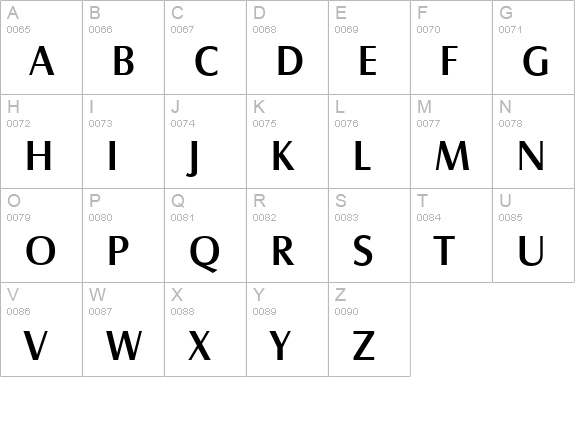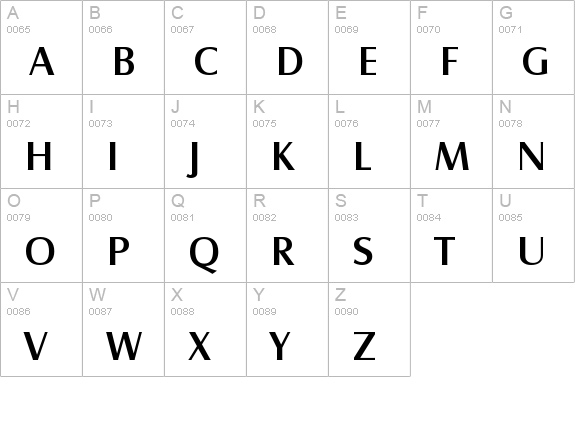
SalzburgSerial-Medium-Regular is a balanced, medium-weight variant in the SalzburgSerial typeface family \xE2\x80\x94 well suited to sub-headlines, navigation, and balanced editorial work.
SalzburgSerial-Medium-Regular font is a versatile and modern typeface that exudes elegance and sophistication. With its clean lines and balanced proportions, this font is perfect for a wide range of design projects, from branding to editorial design. The medium weight provides just the right amount of prominence without overpowering the text. What makes SalzburgSerial-Medium-Regular font even more appealing is that it is available for free download at FontsMarket.com. This means you can easily access and use this high-quality font in your projects without any cost. Whether you are a designer looking for a reliable font option or a business owner in need of a professional typeface, SalzburgSerial-Medium-Regular font is the perfect choice. Download it today and elevate your designs with this exceptional font.